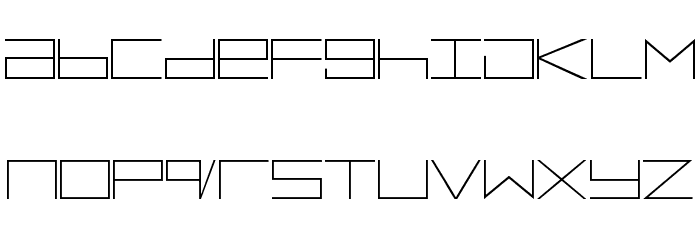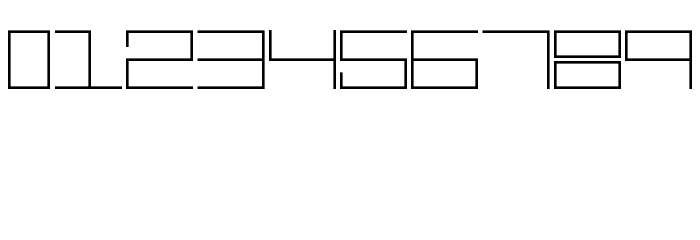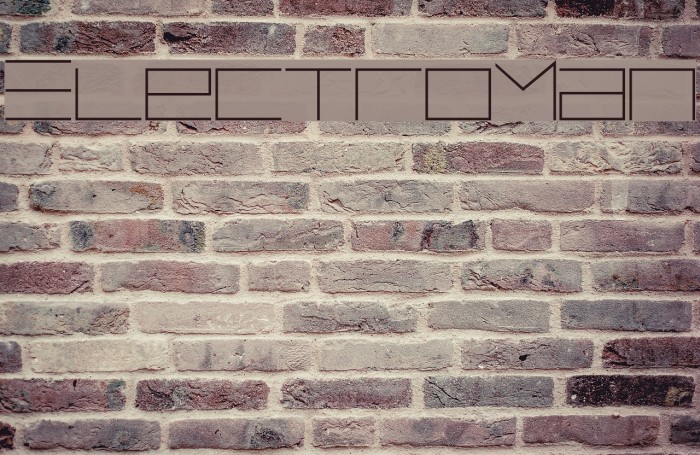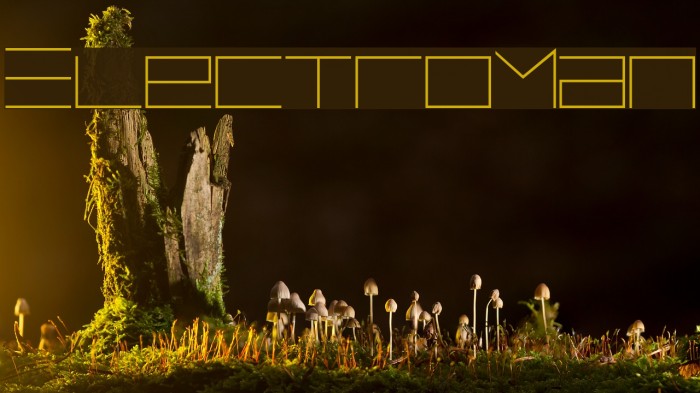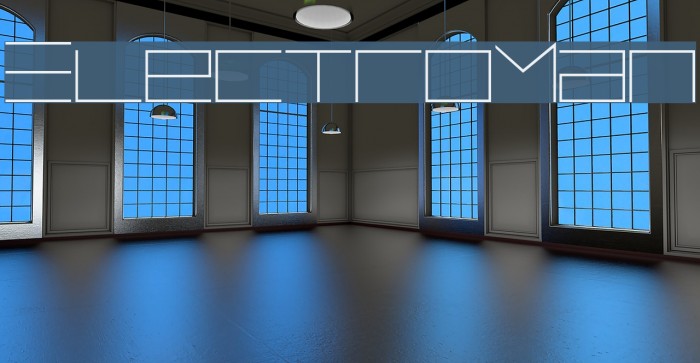
ElectroMan Font
This font features a futuristic, geometric design with a distinct digital aesthetic. Each character is constructed using straight lines and sharp angles, creating a sense of precision and modernity. The uppercase and lowercase letters maintain a consistent style, emphasizing a uniform structure that is both minimalistic and striking. The numbers and special characters follow the same design principles, ensuring a cohesive look across all elements. This font's unique style makes it ideal for projects that require a contemporary and tech-inspired feel.
A futuristic, geometric font with a digital aesthetic.
- Proposed Projects: Ideal for tech branding, digital interfaces, video game titles, and sci-fi themed projects.